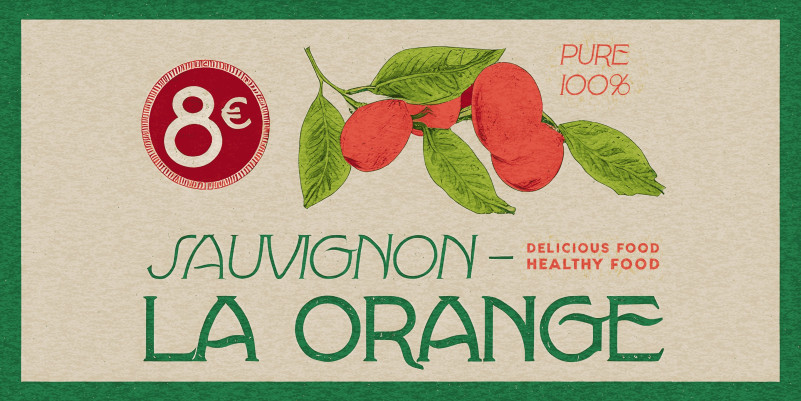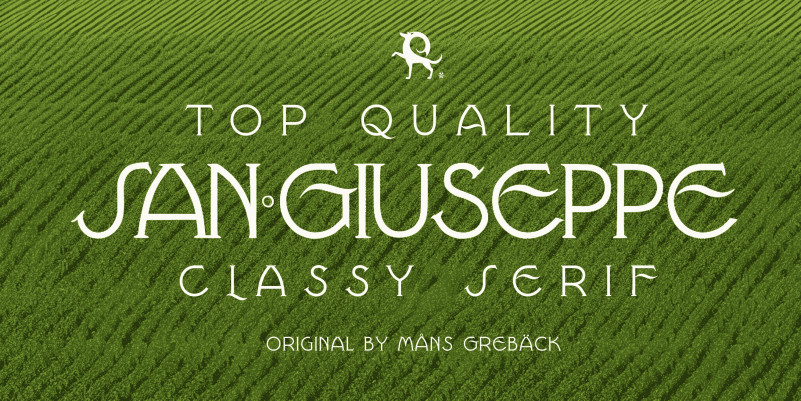
San Giuseppe Font
San Giuseppe Font – Inspired by the romantic, ornate style of the Victorian era and the bold, captivating geometry of Art Deco, San Giuseppe is the perfect blend of neo-classic and vintage aesthetics. With its fine, intricate serifs and delicate, artistic letterforms, this font is a testament to the beauty and craftsmanship of yesteryear, created for a modern setting.